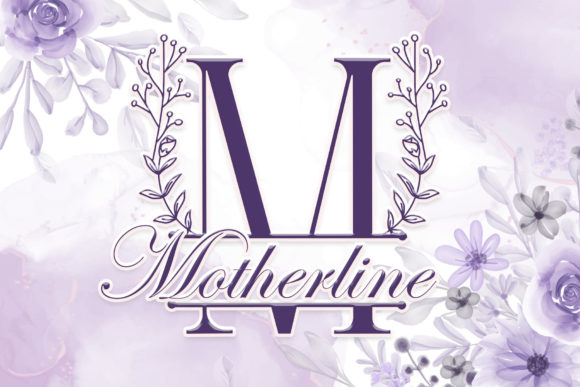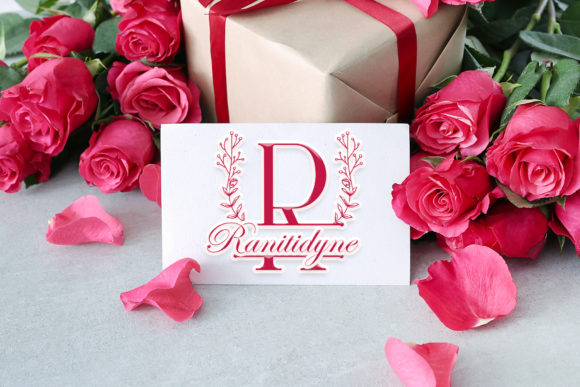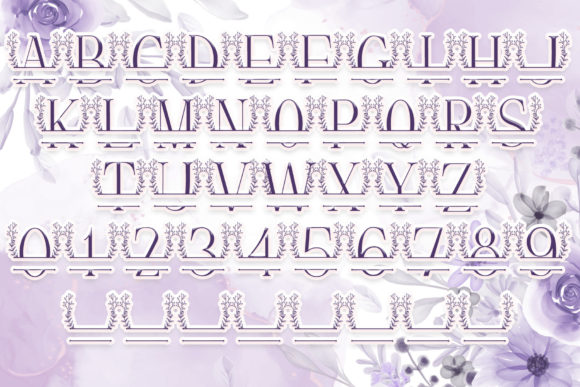
Introduction to Rose Buds Line Monogram Font
Have you ever found yourself scribbling down the perfect phrase in a journal, only to realize that the words just aren’t doing it justice? This is exactly what happened to me when I stumbled upon the Rose Buds Line Monogram Font. Its delicate, high-quality design and transparent background instantly captured my attention, and I knew I had to learn more about this incredible resource.
As a designer, I’m always on the lookout for unique fonts that can elevate my creative projects and make them truly special. And let me tell you, the Rose Buds Line Monogram Font is a game-changer. With its romantic and lovely aesthetic, it’s the perfect addition to any design project, from love letters to wedding invitations.
Key Features of Rose Buds Line Monogram Font
- High-quality design with intricate details, perfect for a creative project that requires a touch of elegance.
- Transparent background, allowing for easy customization and flexibility in design.
- Unique characteristics include its delicate, hand-drawn style and ornate details, making it ideal for wedding invitations, greeting cards, and other special occasions.
- Perfect for designers looking for a high-quality, customizable font to add a personal touch to their creative project.
Honest Review: Rose Buds Line Monogram Font
I recently had the chance to work with the Rose Buds Line Monogram Font and I’m excited to share my honest thoughts with you.
First, the good stuff. ✨ The Rose Buds Line Monogram Font is a high-quality design resource that’s perfect for any creative project. The font is highly customizable, allowing you to easily change the color and size to fit your needs. The transparent background makes it easy to use in a variety of design scenarios, from wedding invitations to branding materials.
One thing to be aware of is that the font may not be suitable for all types of projects. ⚠️ For example, it may not be the best choice for body text, as it’s primarily designed for use as a monogram or accent font. Additionally, the font may not be compatible with all operating systems or software.
Overall, I’m really impressed with the Rose Buds Line Monogram Font. It’s a valuable design resource that’s sure to add a touch of elegance to any creative project. I would definitely recommend it to designers looking for a high-quality monogram font.
Tips for Getting the Most Out of Rose Buds Line Monogram Font
Experiment with different font sizes and styles to achieve the desired effect. Combine Rose Buds Line Monogram Font with other design elements to create a unique and eye-catching design. Use it for various projects, from wedding invitations to business cards.
Rose Buds Line Monogram Font is ideal for various design projects, including wedding invitations, branding materials, business cards, and social media graphics. Its elegant and sophisticated design makes it perfect for any creative project that requires a high-quality and professional look.